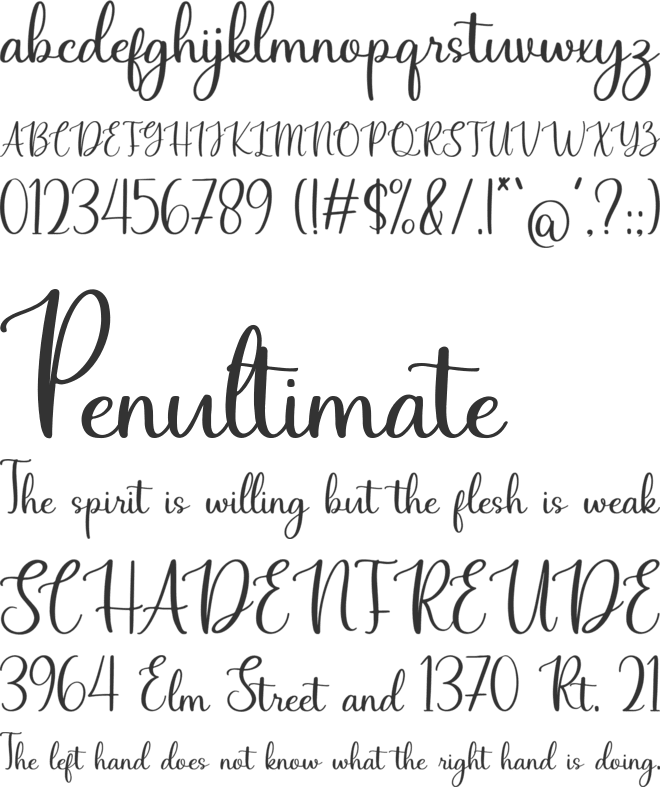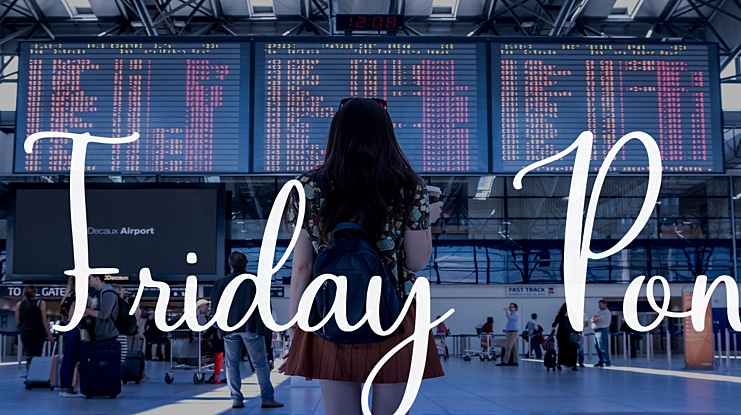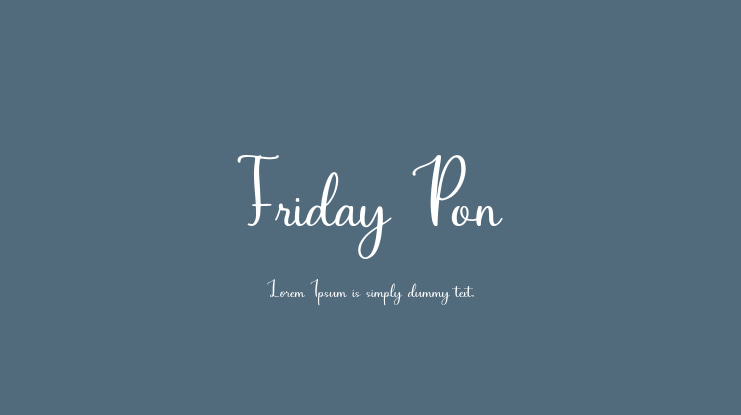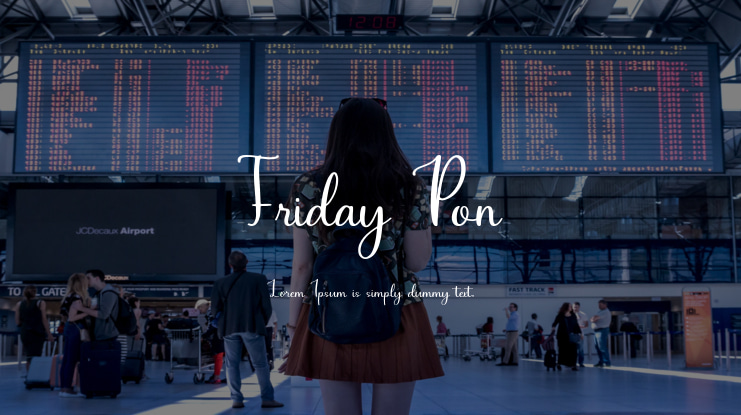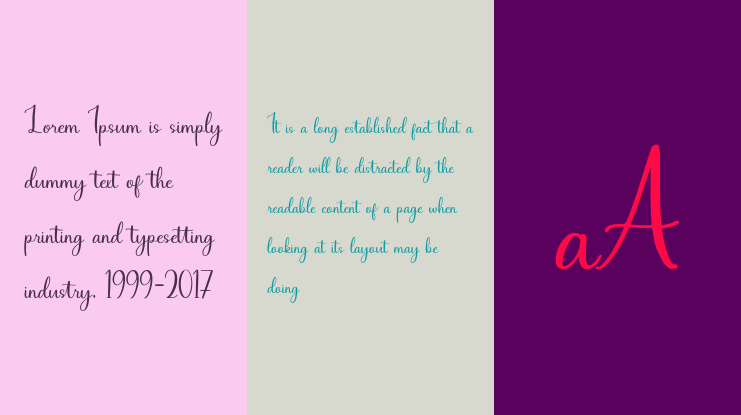
Friday Pon Font
About Friday Pon :
Friday Pon is a carefully crafted handwritten font. Cursive and stylish, that will make your project awesome. The font is perfect for fashion branding, photography, quotes, wedding invitation, and much more. Take your design to the next level with Friday Pon.